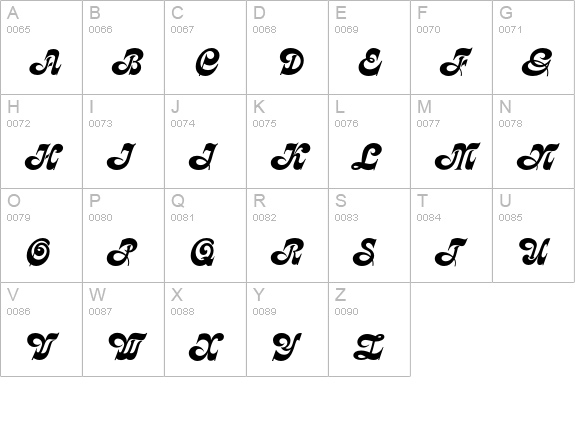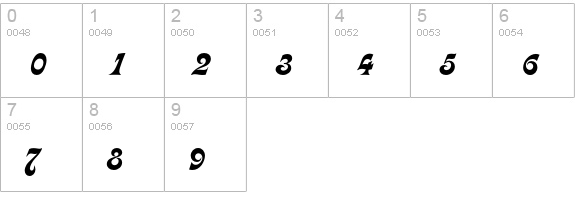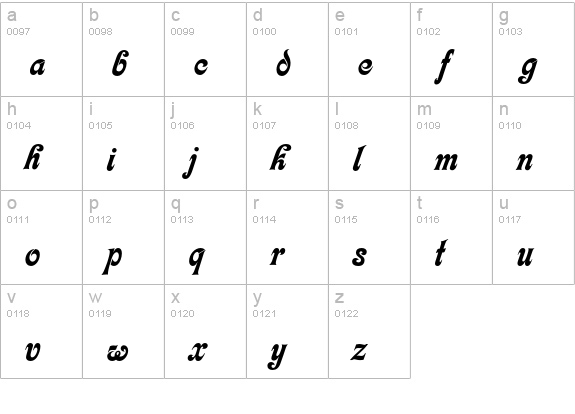
KalligraphiaEF Font Details
KalligraphiaEF is an exquisite font that beautifully captures the artistry of calligraphy. Its elegant and flowing strokes bring a touch of sophistication and grace to any design project. With its intricate details and delicate curves, KalligraphiaEF is perfect for adding a touch of elegance to wedding invitations, branding materials, and luxury packaging. This font effortlessly combines traditional calligraphy with a modern twist, making it versatile for both classic and contemporary designs. Its smooth and seamless lines create a harmonious flow, capturing the essence of handwritten artistry. Whether you're designing a logo, crafting a headline, or creating a stunning typography piece, KalligraphiaEF adds a touch of refined beauty that is sure to captivate your audience. One of the most remarkable aspects of KalligraphiaEF is that it is available for free. Yes, you read that right! This stunning font can be freely downloaded at FontsMarket.com, allowing designers of all levels to access its beauty and versatility without any constraints. Embracing the spirit of inclusivity and creative freedom, KalligraphiaEF opens up a world of possibilities for designers to effortlessly incorporate the elegance of calligraphy into their projects. So whether you're a professional designer looking to add a touch of sophistication to your work or a hobbyist wanting to explore the beauty of calligraphy, KalligraphiaEF is the perfect choice. With its timeless appeal and freely accessible nature, this font truly stands out as a gem in the world of typography. Download KalligraphiaEF today and let your creativity flourish with the limitless possibilities it offers.